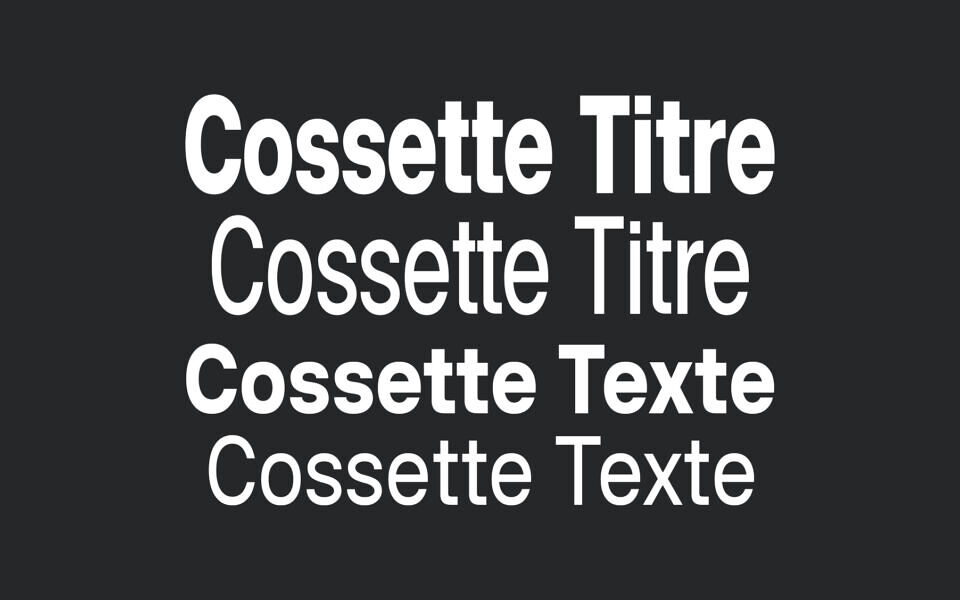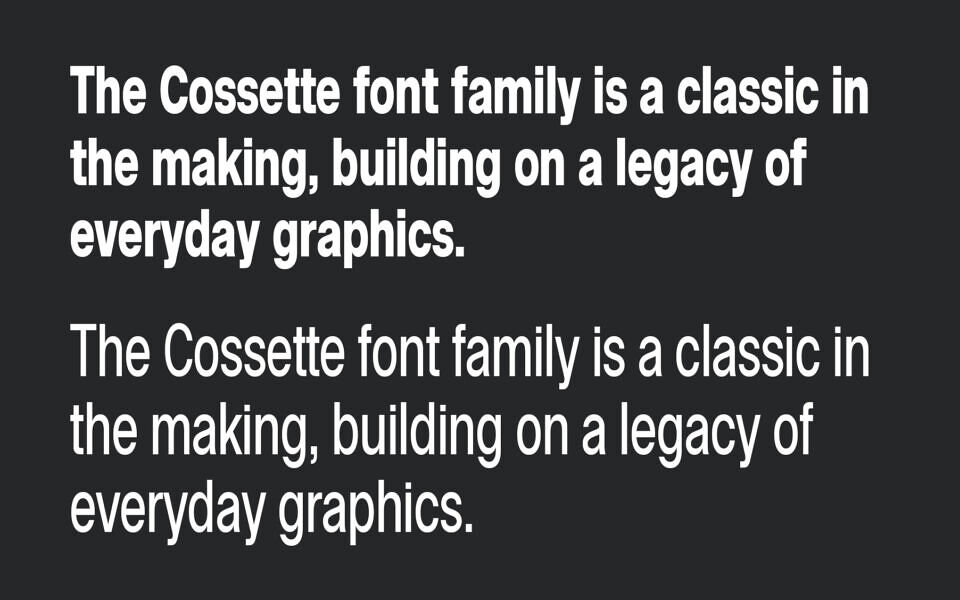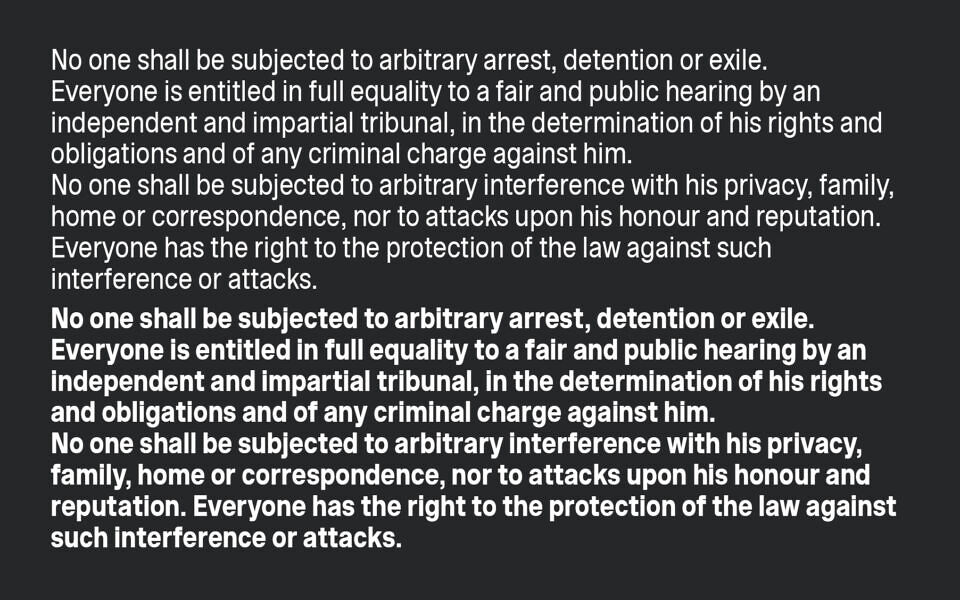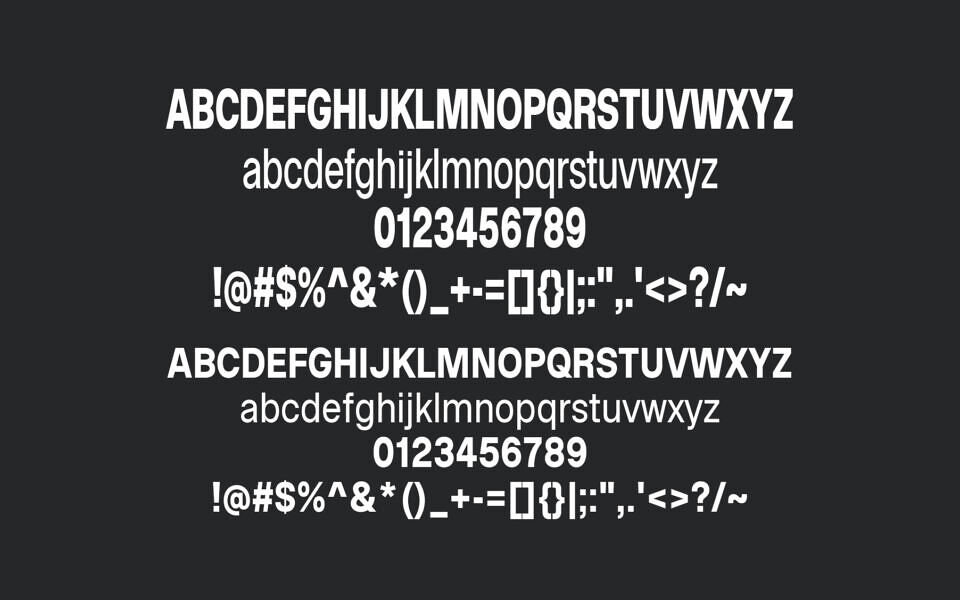
The Cossette font family is a classic in the making, building on a legacy of everyday graphics. Based on the foundations of the Cossette brand, it combines typical grotesque design with a subtle inverted contrast to create a distinct visual voice that feels both familiar and unexpected.
The fonts are currently available in two versions—Cossette Titre and Cossette Texte—designed to pair beautifully together. Cossette Titre is more condensed to maximize impact in any given space, while Cossette Texte is wider set to maximize sentence legibility.